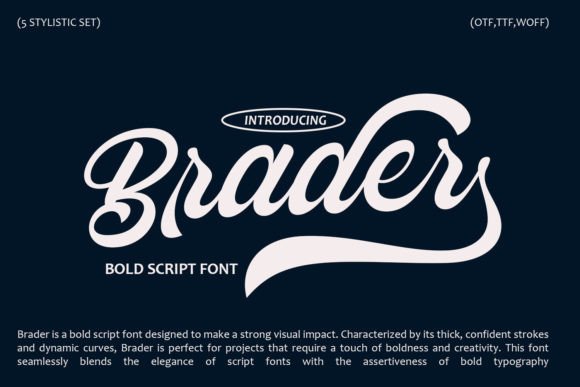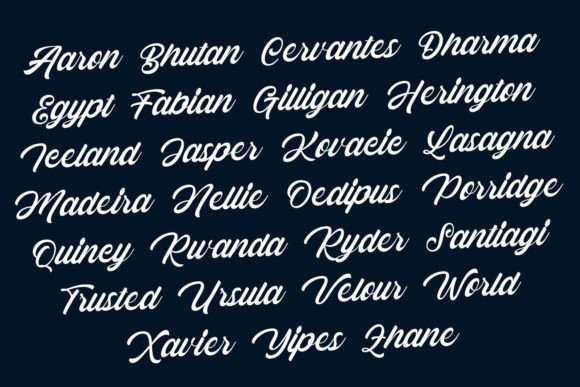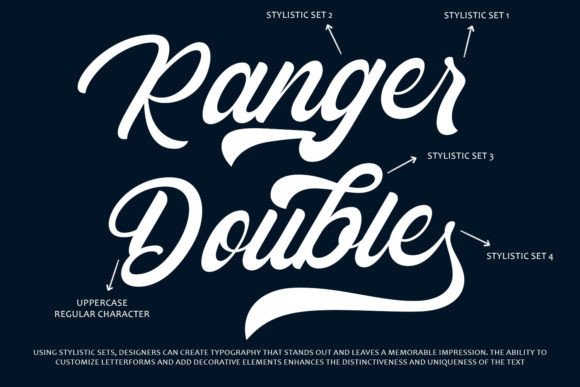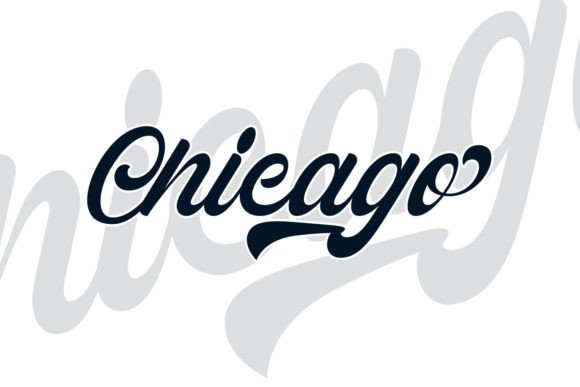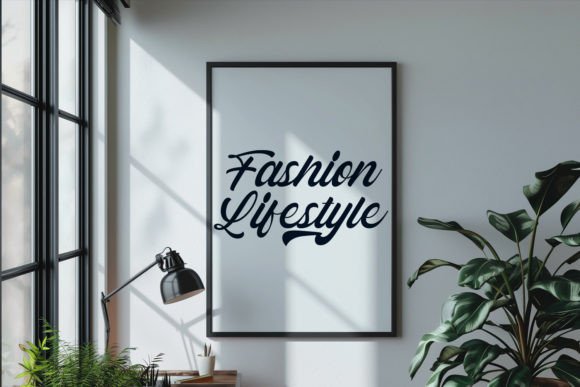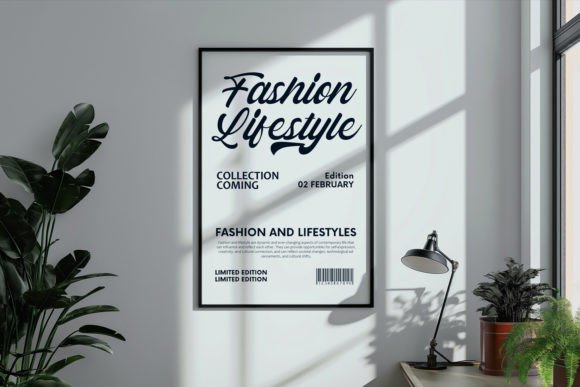
Introducing Brader Font: The Bold Script Font for Creative Projects
In the world of typography, fonts play a crucial role in conveying the tone and personality of a brand or design. For designers and crafters looking for a bold and eye-catching font, Brader Font is an excellent choice. This bold script font is designed to make a strong visual impact, characterized by its thick, confident strokes and dynamic curves. In this article, we’ll explore the features and benefits of Brader Font, and how it can elevate your creative projects.
The Features of Brader Font
Brader Font is a bold script font that exudes confidence and creativity. Its thick, confident strokes and dynamic curves make it perfect for projects that require a touch of boldness and flair. The font’s bold and expressive nature makes it ideal for headlines, titles, and promotional materials. Whether you’re designing a logo, brochure, or social media graphic, Brader Font is sure to make a lasting impression.
The Benefits of Using Brader Font
So, why choose Brader Font for your creative projects? Here are just a few benefits of using this bold script font:
- Attention-grabbing: Brader Font is designed to grab attention and make a strong visual impact. Its bold and confident strokes ensure that your message is seen and remembered.
- Creative freedom: With Brader Font, you have the creative freedom to experiment with different styles and designs. The font’s dynamic curves and thick strokes allow for a range of creative possibilities.
- Versatility: Brader Font is versatile and can be used for a range of projects, from branding and headlines to promotional materials and more.
- Easy to read: Despite its bold nature, Brader Font is easy to read and understand, making it perfect for projects that require a clear and concise message.
Who Can Benefit from Brader Font?
Brader Font is perfect for designers, crafters, and businesses looking to add a touch of boldness and creativity to their projects. Here are a few examples of who can benefit from using Brader Font:
- Graphic designers: Graphic designers can use Brader Font to create eye-catching logos, brochures, and social media graphics that showcase their client’s brand and message.
- Crafters: Crafters can use Brader Font to add a personal touch to their handmade projects, such as signs, cards, and gift tags.
- Businesses: Businesses can use Brader Font to create bold and attention-grabbing promotional materials, such as flyers, posters, and billboards.
Tips for Using Brader Font
To get the most out of Brader Font, here are a few tips to keep in mind:
- Use it sparingly: Brader Font is bold and attention-grabbing, so use it sparingly to avoid overwhelming your design.
- Experiment with colors: Brader Font looks great in a range of colors, so experiment with different colors to find the one that works best for your project.
- Pair it with other fonts: Brader Font can be paired with other fonts to create a unique and interesting design.
In conclusion, Brader Font is a bold script font that is perfect for designers, crafters, and businesses looking to add a touch of boldness and creativity to their projects. With its thick, confident strokes and dynamic curves, Brader Font delivers a powerful visual statement that is sure to grab attention and make a lasting impression. Whether for branding, headlines, or promotional materials, Brader Font is an excellent choice for anyone looking to make a bold and creative statement.